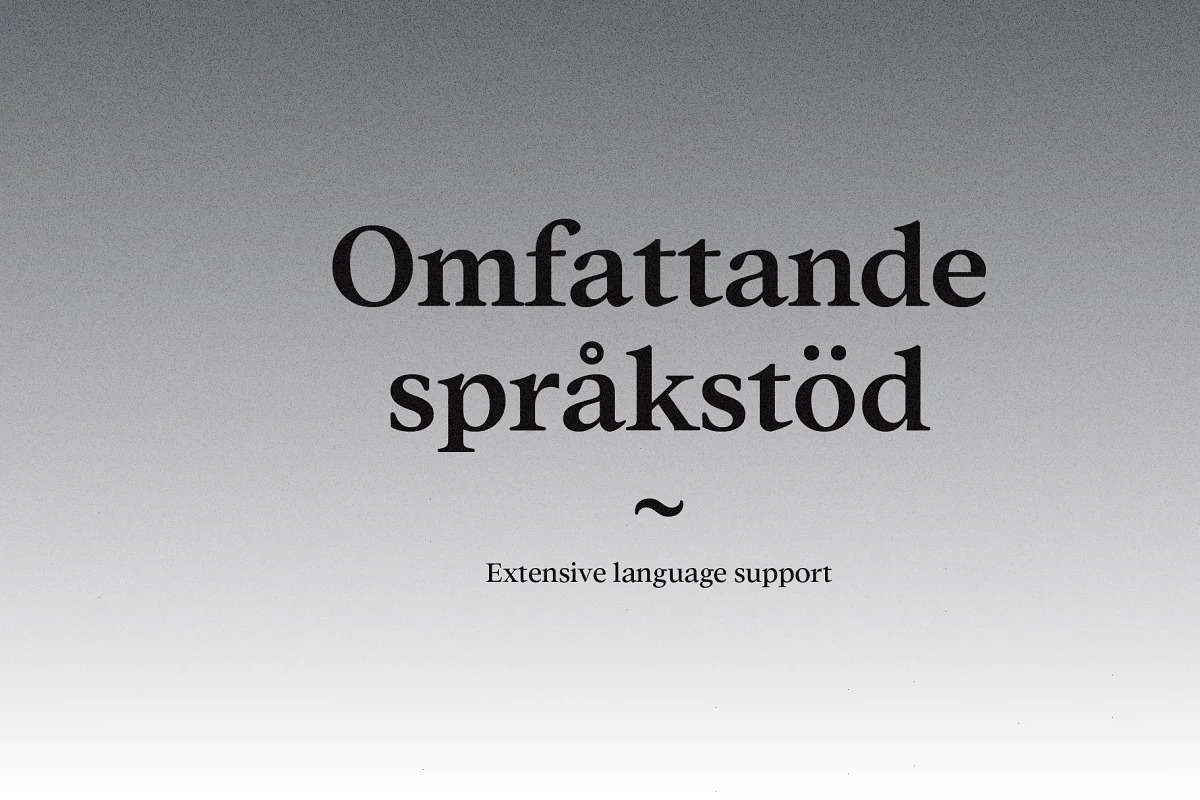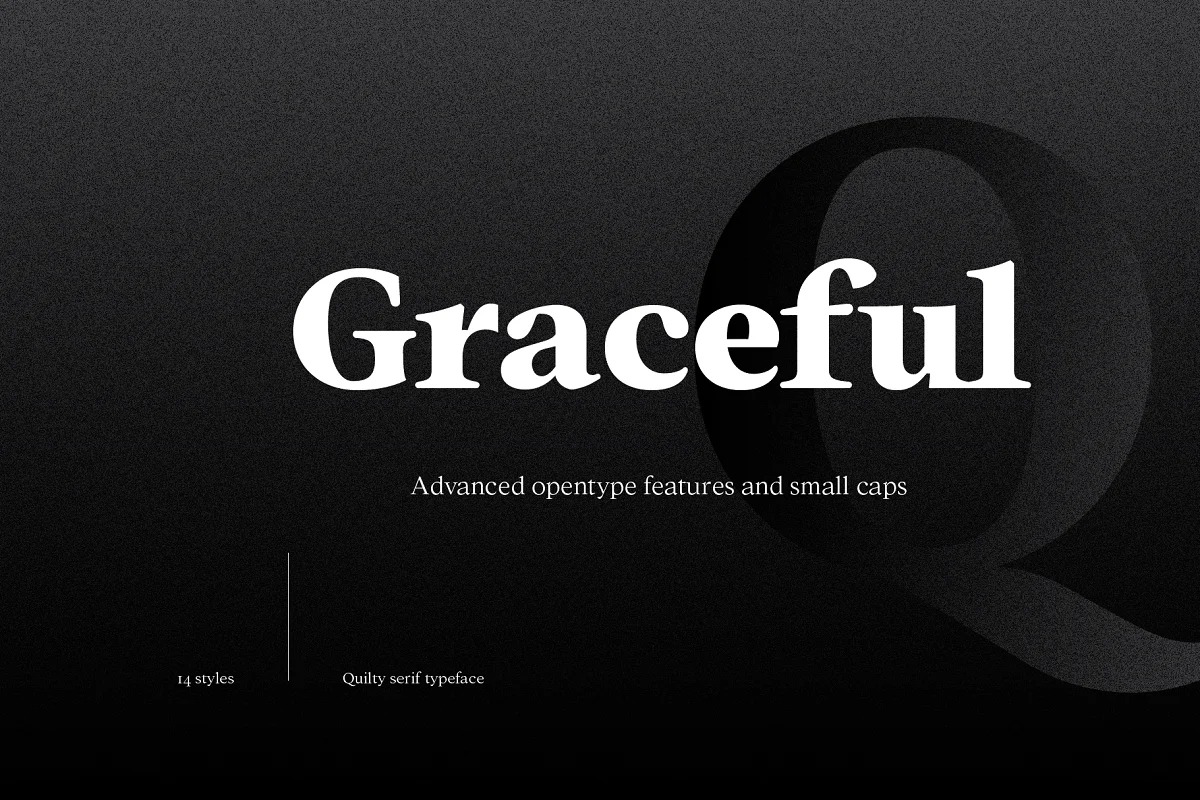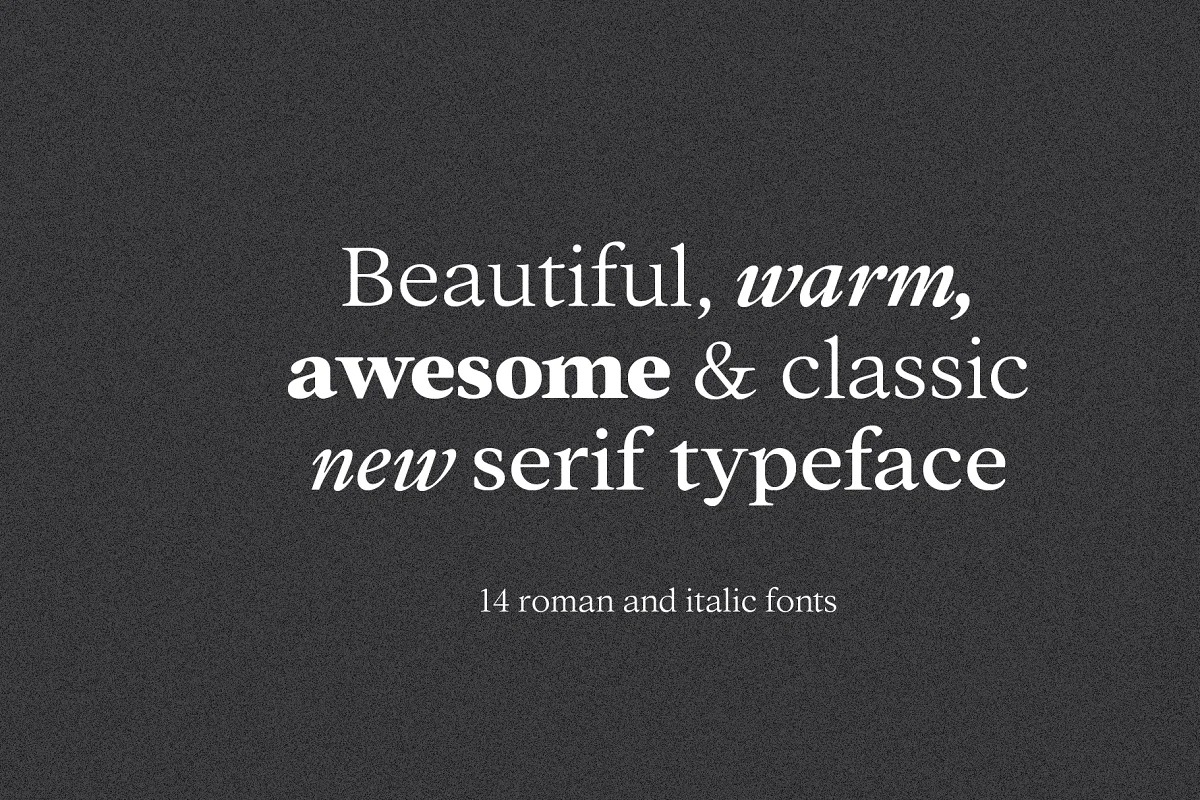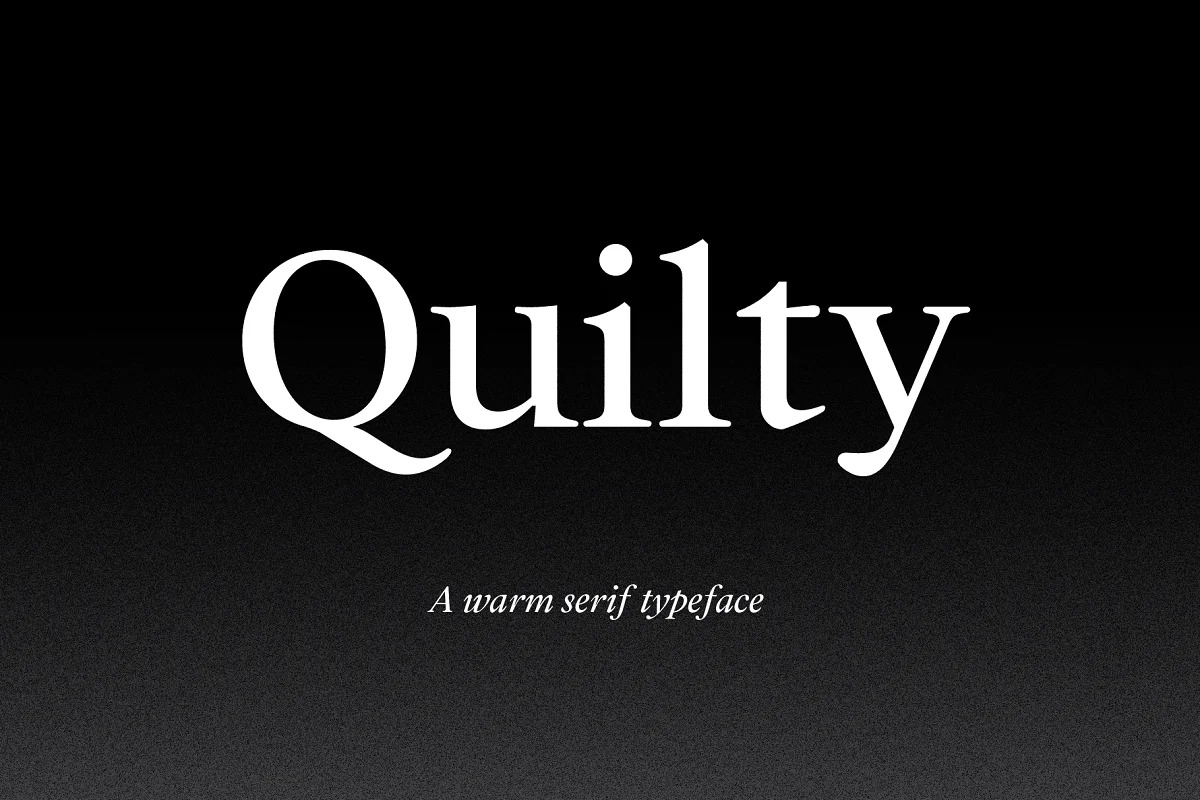
Quilty Font
Quilty Serif Font
This is a new geometric, serif font family that brings a fresh, modern look to any design. It’s carefully designed to be your excellent choice for a serif typeface. It is perfect in text-heavy settings and amazing as a display font as well. Quilty typeface is also available as single sets of roman & italic.